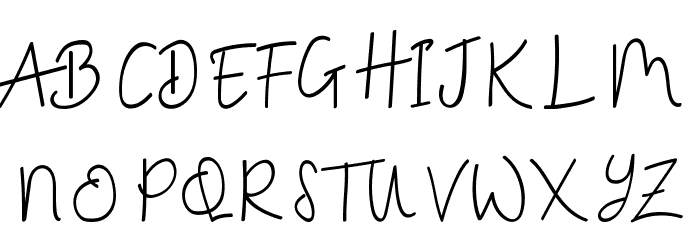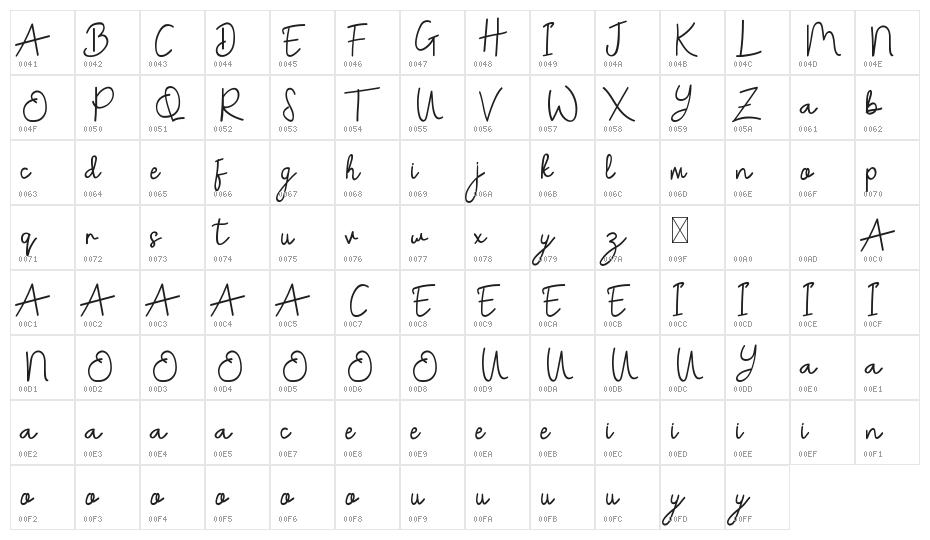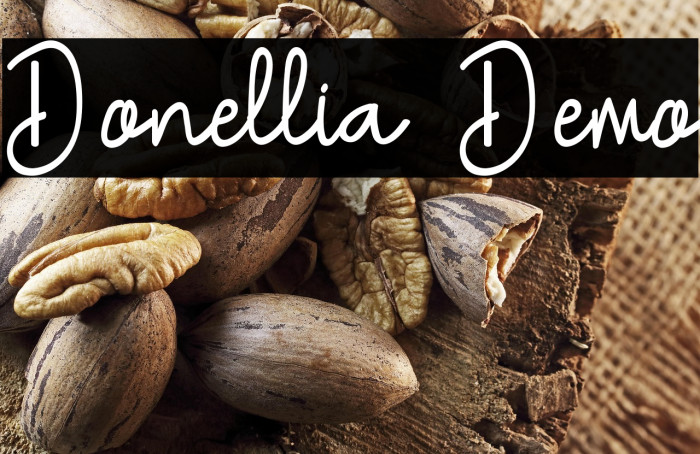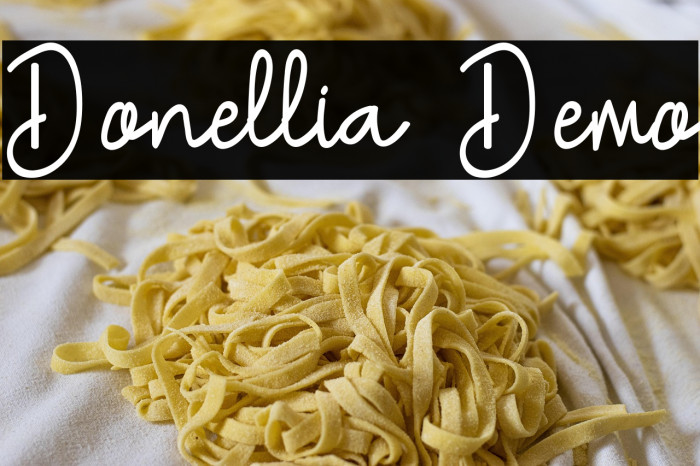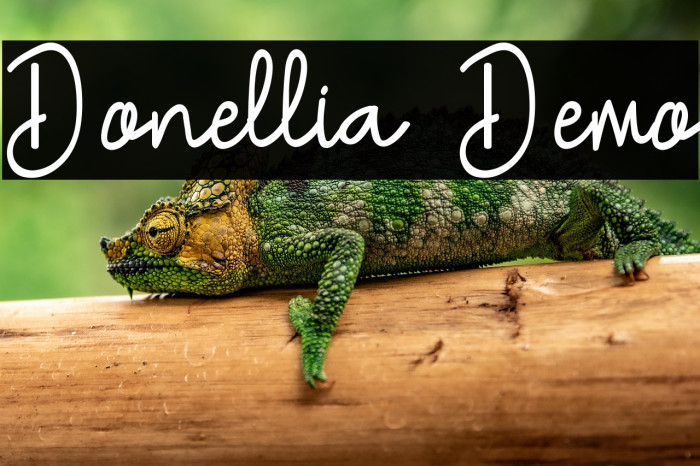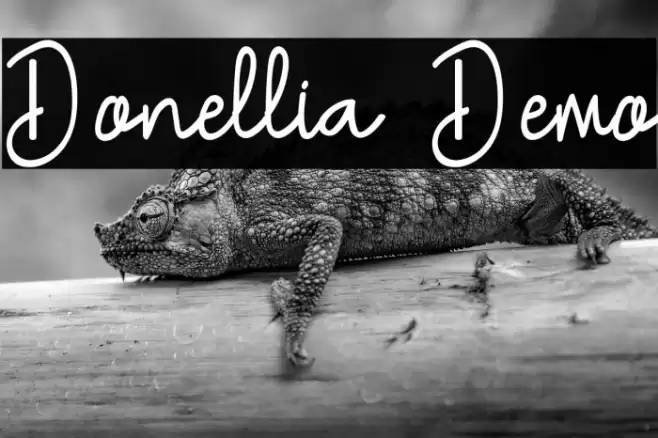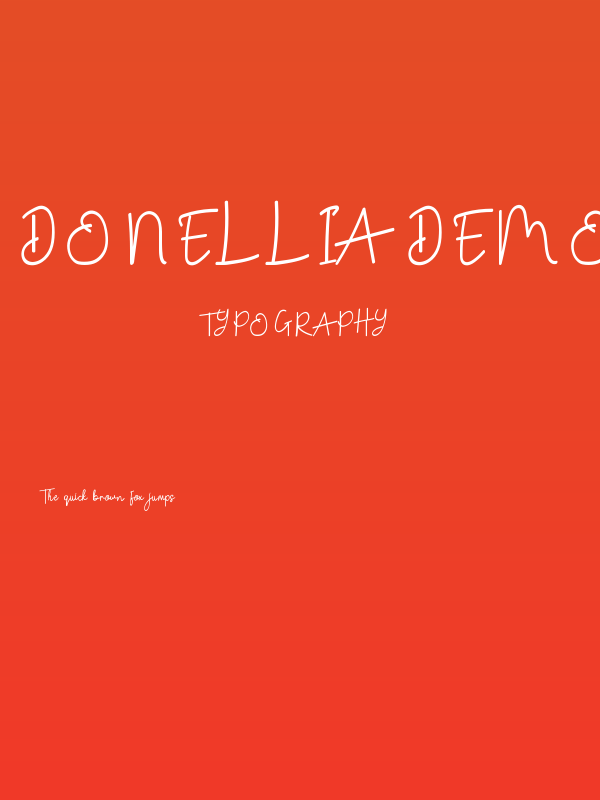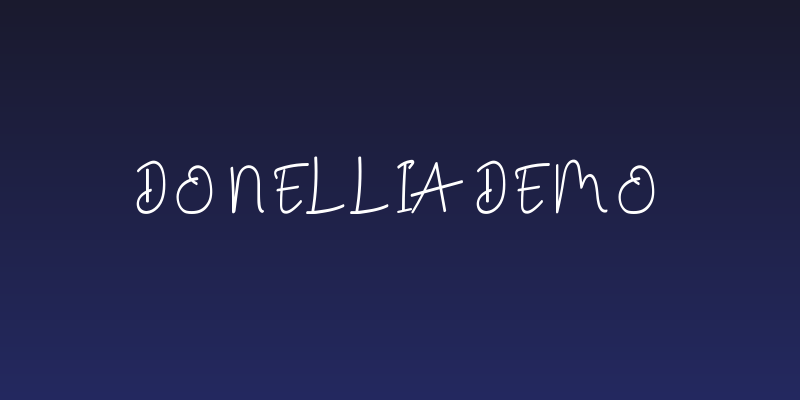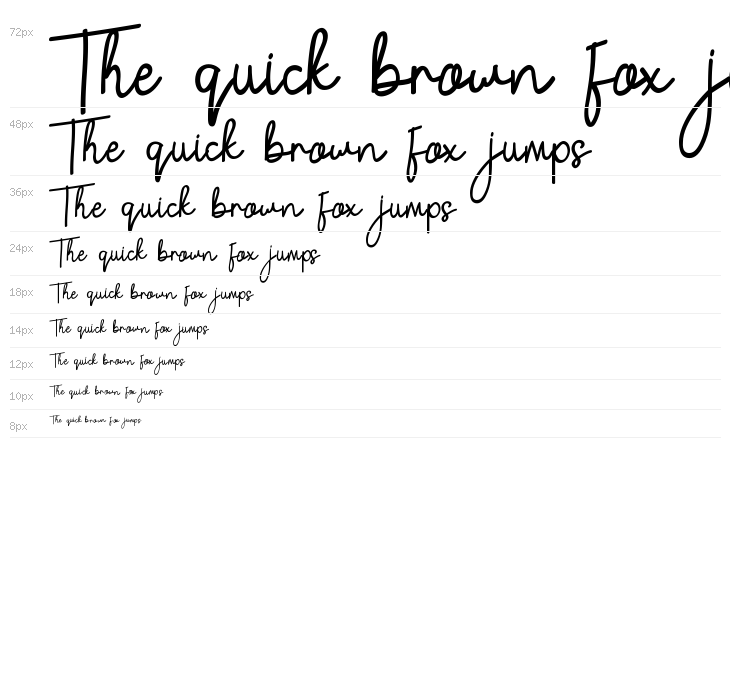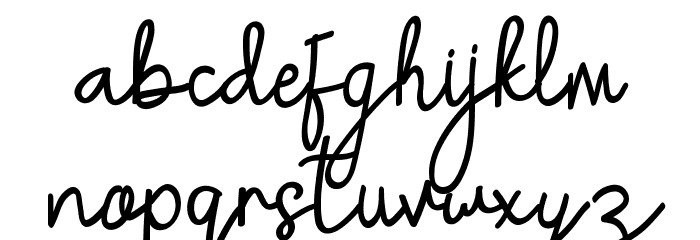
Donellia Demo Font
Donellia Demo Description
This font features a playful and casual handwritten style, characterized by its fluid and dynamic strokes. The uppercase letters are tall and slightly narrow, with a whimsical flair that gives them a lively appearance. The lowercase letters are more connected, with smooth transitions between each character, creating a sense of continuity and flow. The overall design is informal yet elegant, making it suitable for a variety of creative projects. The font's unique charm lies in its ability to convey a sense of personality and warmth, making it ideal for personal branding, invitations, and other projects that require a touch of individuality.
| Proposed Projects | Ideal for personal branding, invitations, greeting cards, and creative projects requiring a personal touch. |